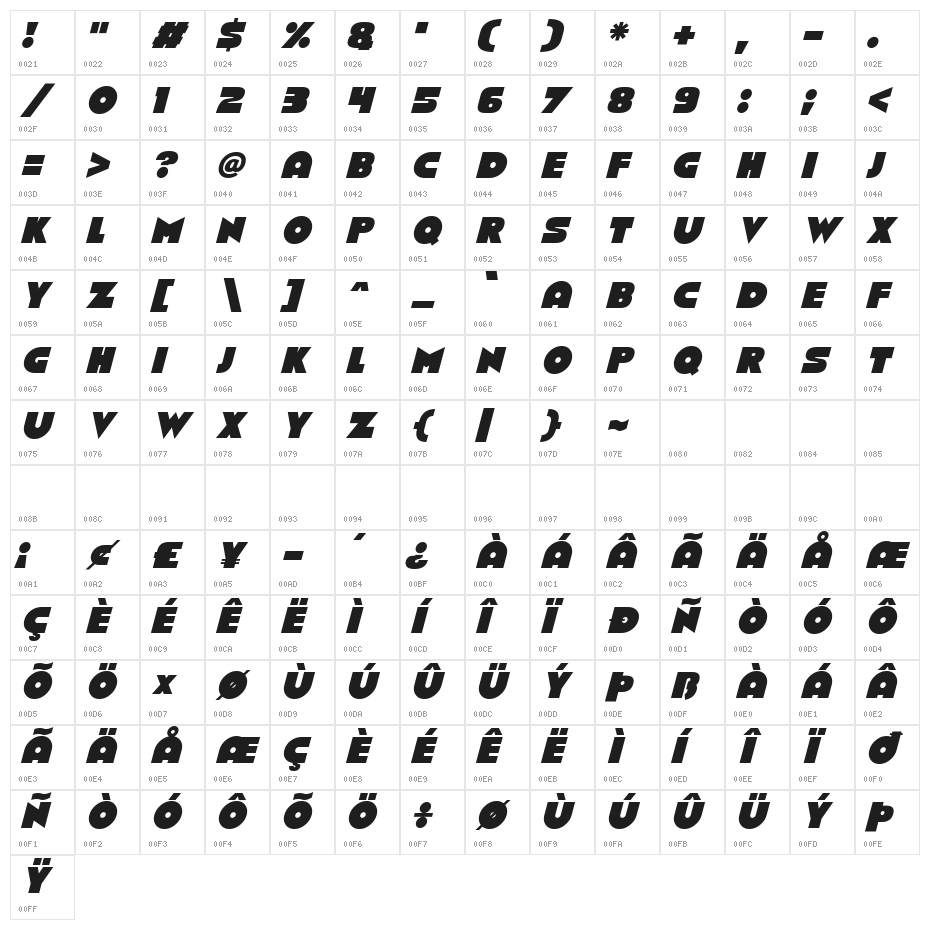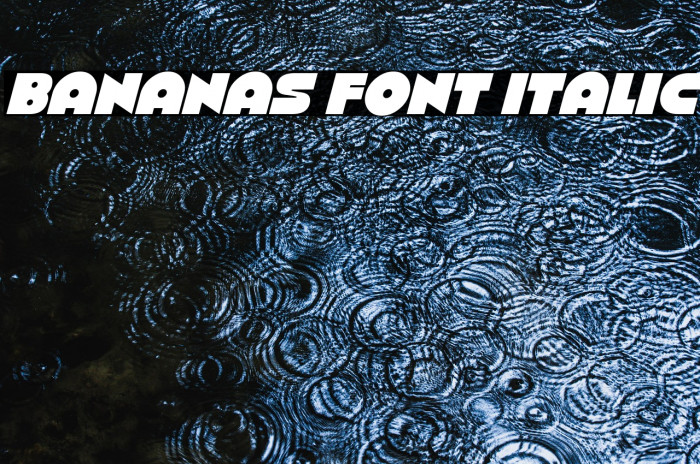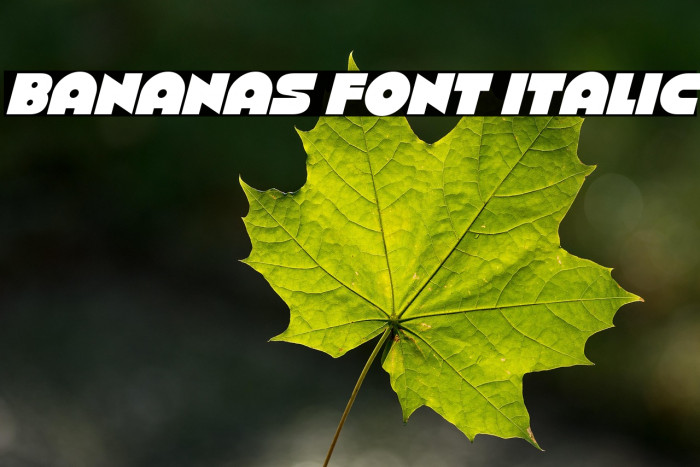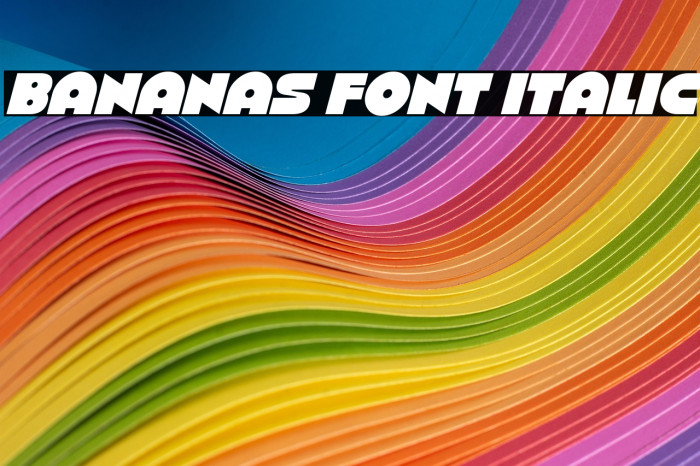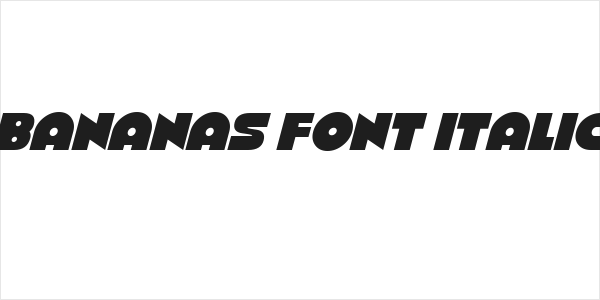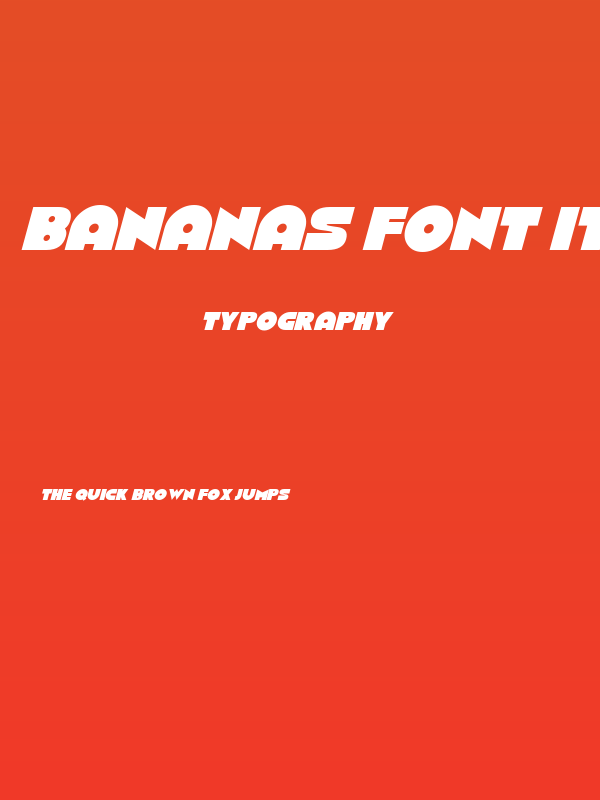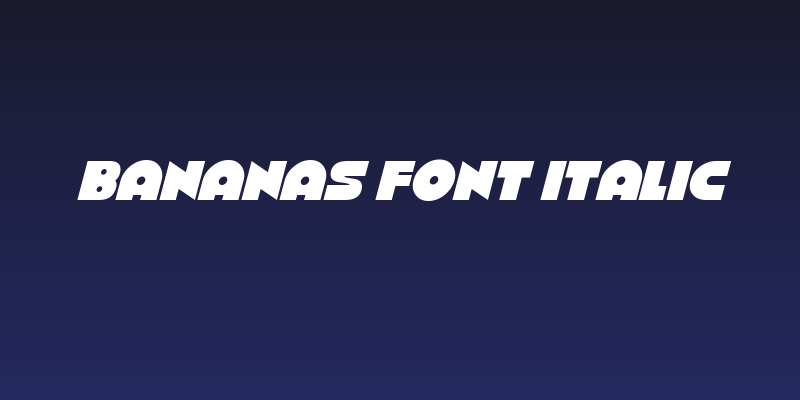
Bananas Font Italic Font
Bananas Font Italic Description
This font features a bold and dynamic style with a distinct italic slant, giving it a sense of movement and energy. The characters are thick and robust, with a geometric influence that adds a modern touch. The uppercase and lowercase letters maintain a consistent weight, ensuring readability while still making a strong visual impact. The numbers and special characters are designed to match the boldness of the alphabet, creating a cohesive look across all elements. The overall design is suitable for projects that require a striking and attention-grabbing typeface.
| Proposed Projects | Ideal for branding, posters, headlines, and any design needing a bold statement. |